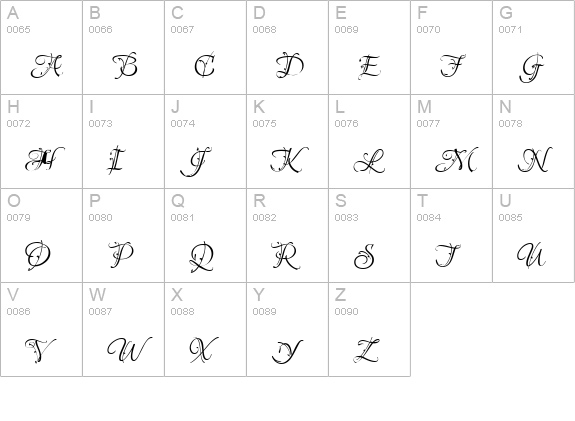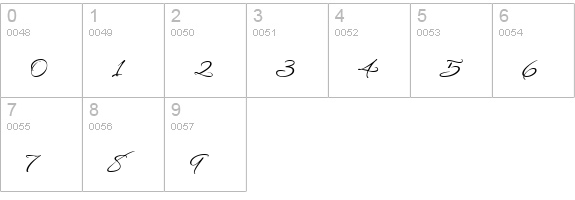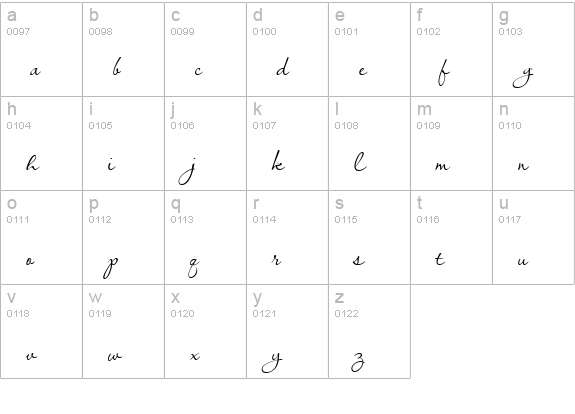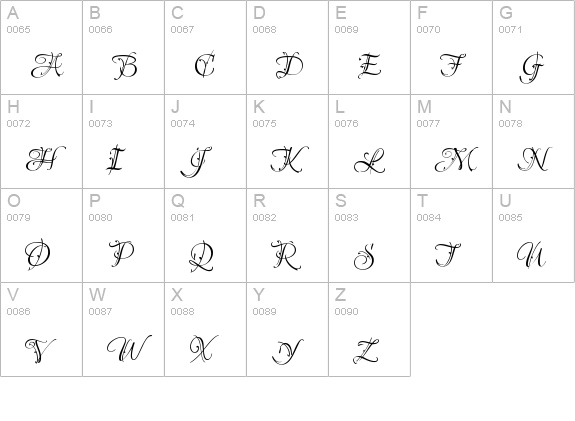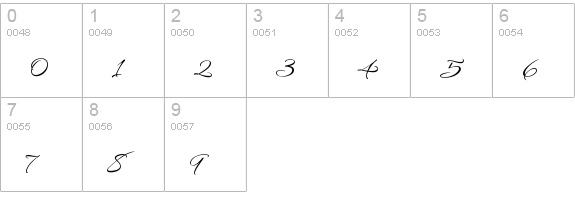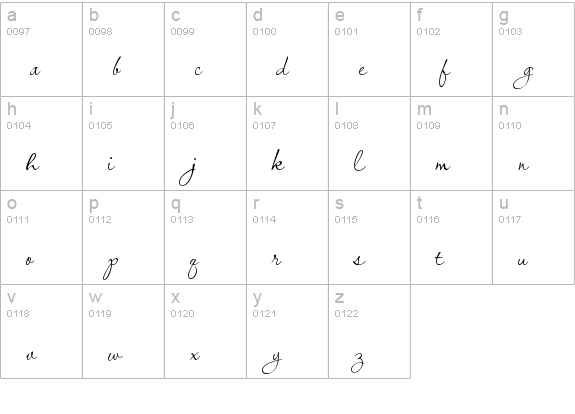
LavishlyYoursROB Font Details
Introducing LavishlyYoursROB, a font that exudes elegance, sophistication, and a touch of luxury. With its beautifully crafted letterforms and intricate details, this font is perfect for adding a touch of opulence to any design project. LavishlyYoursROB boasts a timeless appeal, seamlessly blending classic and modern aesthetics. Its clean lines and graceful curves create a harmonious balance, making it versatile and suitable for a wide range of creative endeavors. What makes LavishlyYoursROB even more attractive is that it is freely available to download at FontsMarket.com. This means that you can easily access and incorporate this stunning font into your designs, without any cost or hassle. Whether you are designing wedding invitations, branding materials, or editorial layouts, LavishlyYoursROB will elevate your work to new heights. Its exquisite and refined appearance will captivate your audience, leaving a lasting impression. Don't miss out on this opportunity to enhance your designs with LavishlyYoursROB. Download it for free at FontsMarket.com and let your creativity soar with this truly remarkable font.